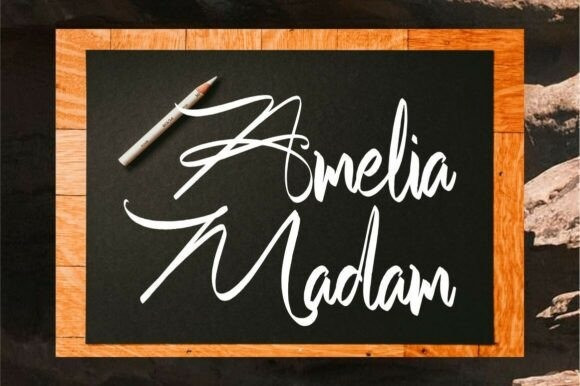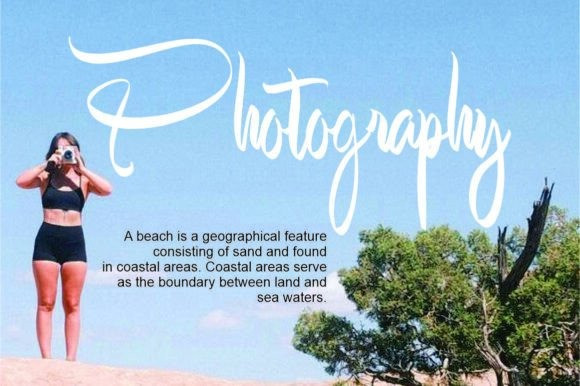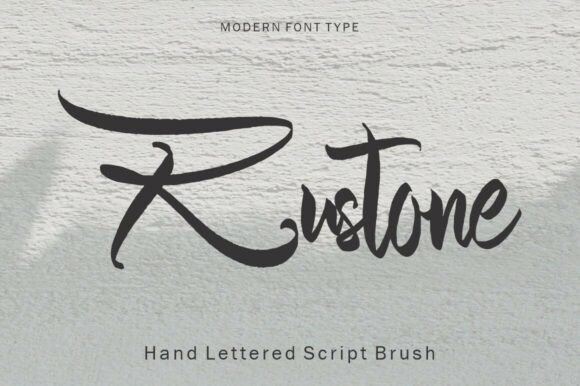
Rustone Script Font
Rustone Script Font is an expressive handwritten font. With modern pen strokes, fun characters with little ligatures, alternate lowercase, and swashes. To give you more creative work. Rustone font supports multilingual. This font is good for logo design, social media, movie titles, book titles, short texts, even long letter texts, and is good for your secondary text font with sans or serif. Create stunning work with Rustone font.